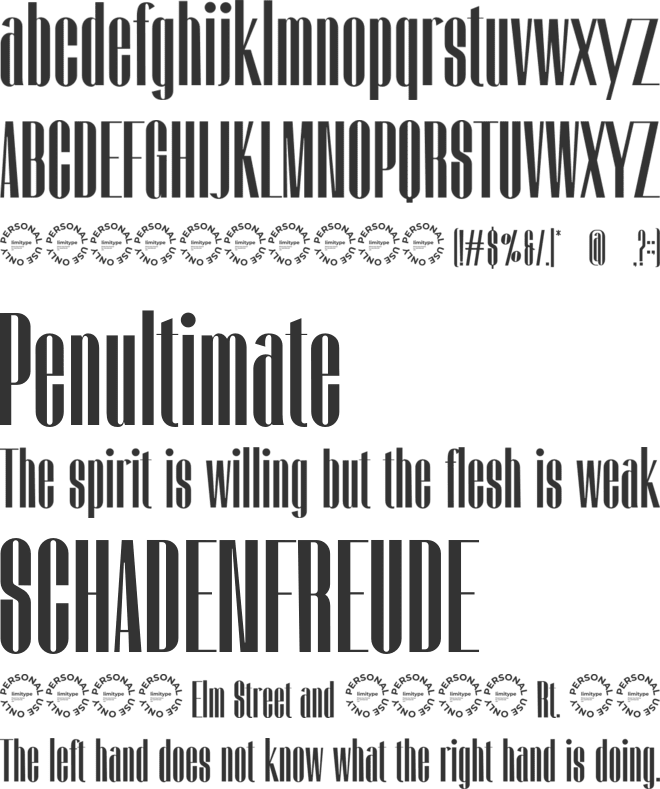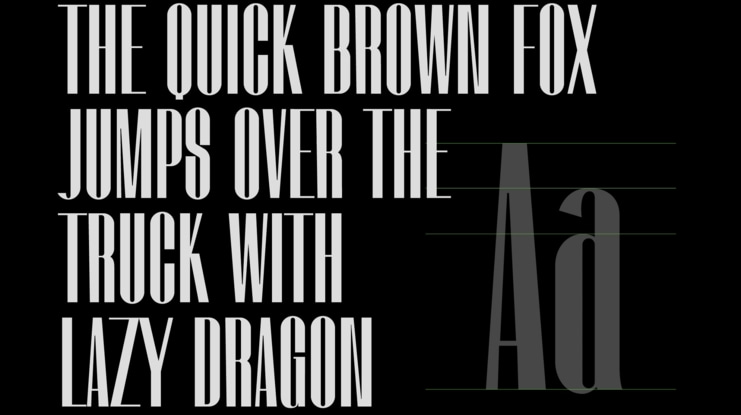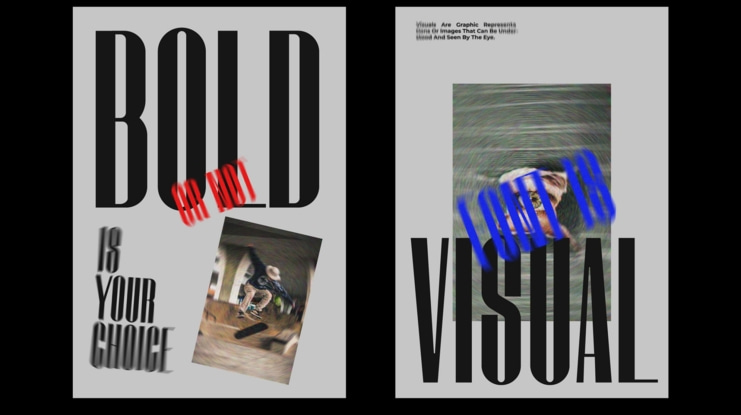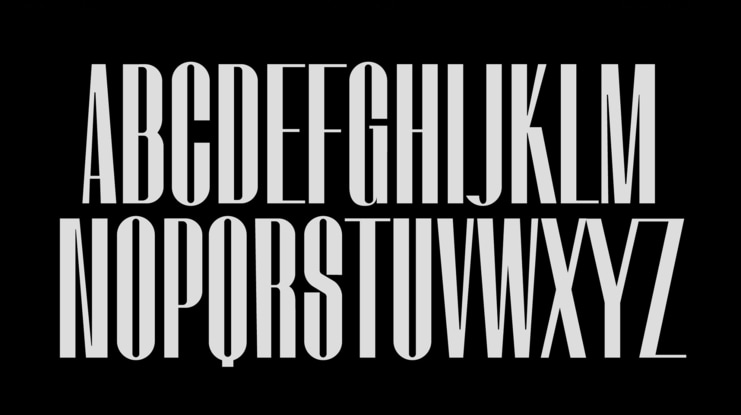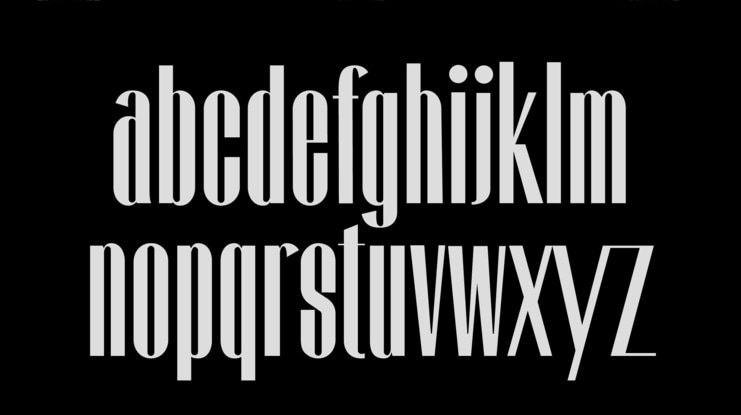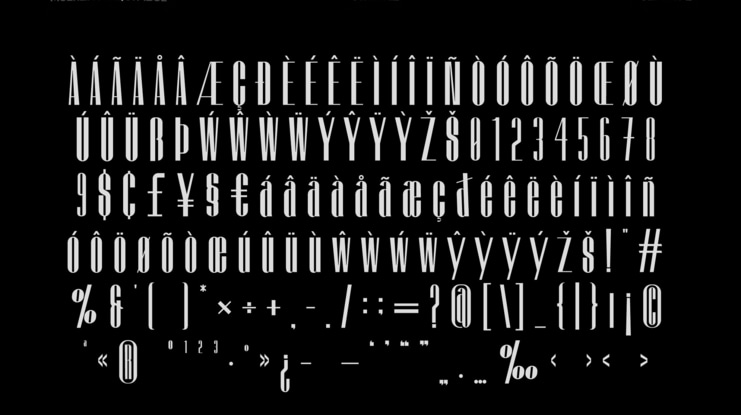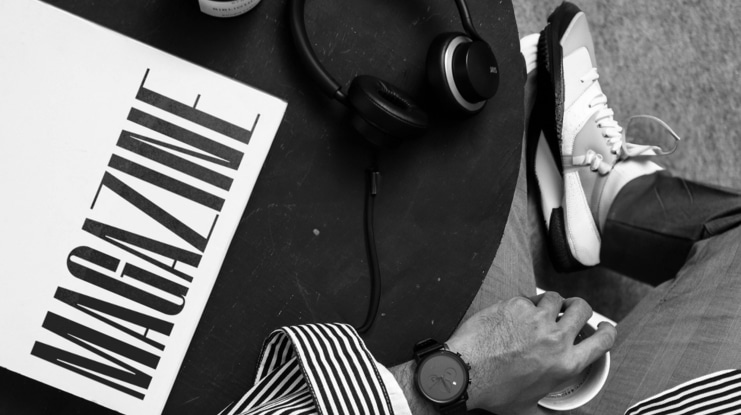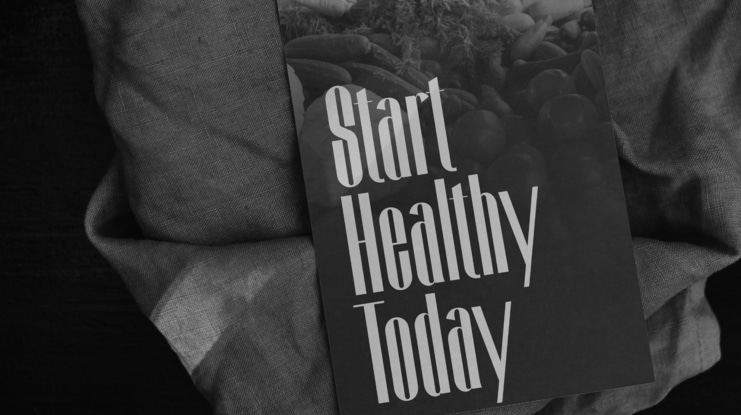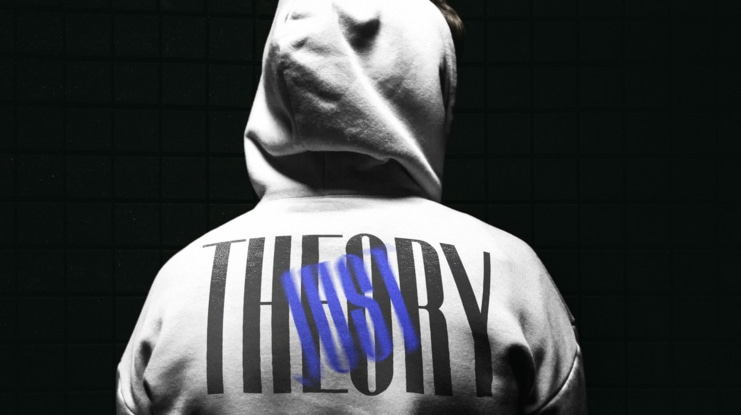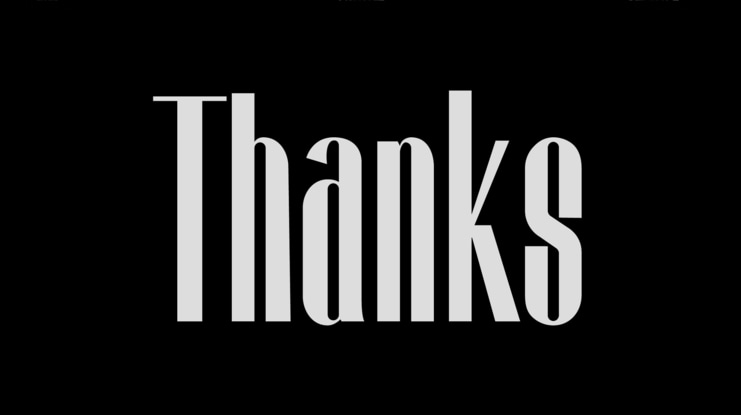
Agrokiz Font
Muhammad Muammar
Agrokiz is a typeface designed for display and design needs that require large text such as magazine headlines, banners, etc. With its modern form, this typeface is quite applicable for various media and design styles. Agrokiz is equipped with uppercase, lowercase, symbols, numbers and multilingual.